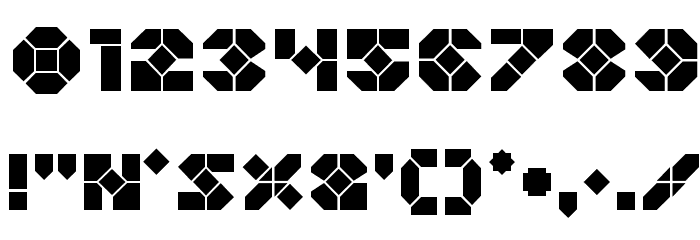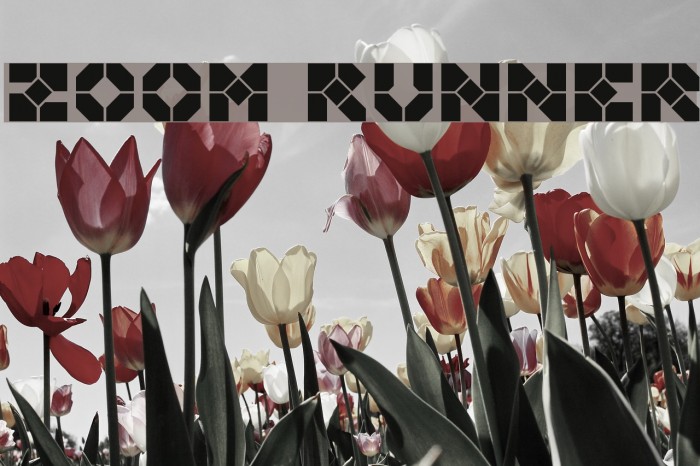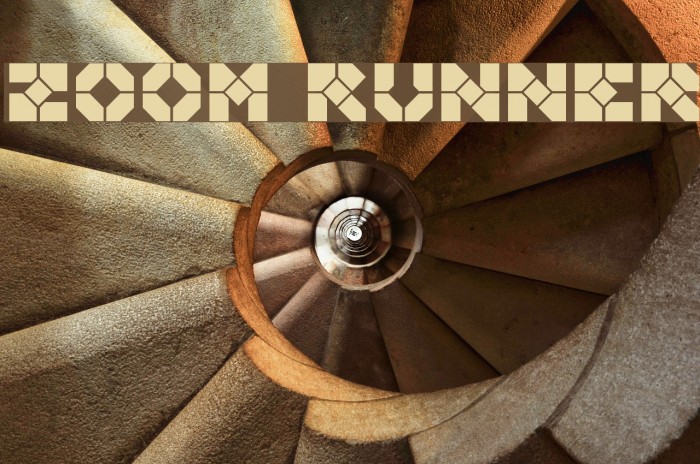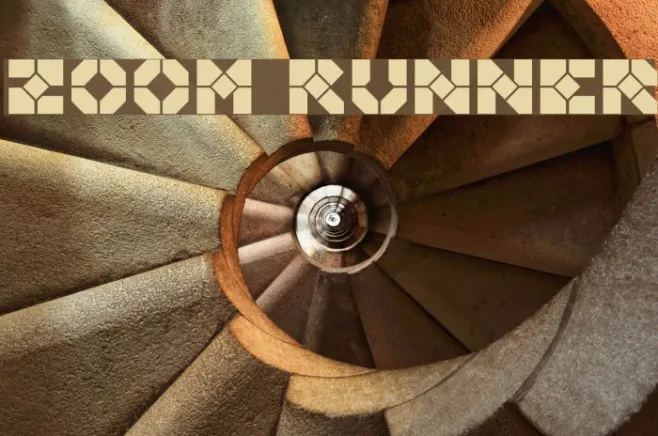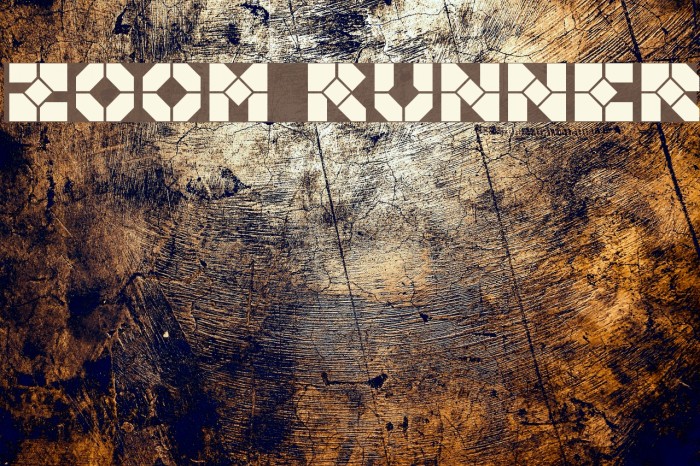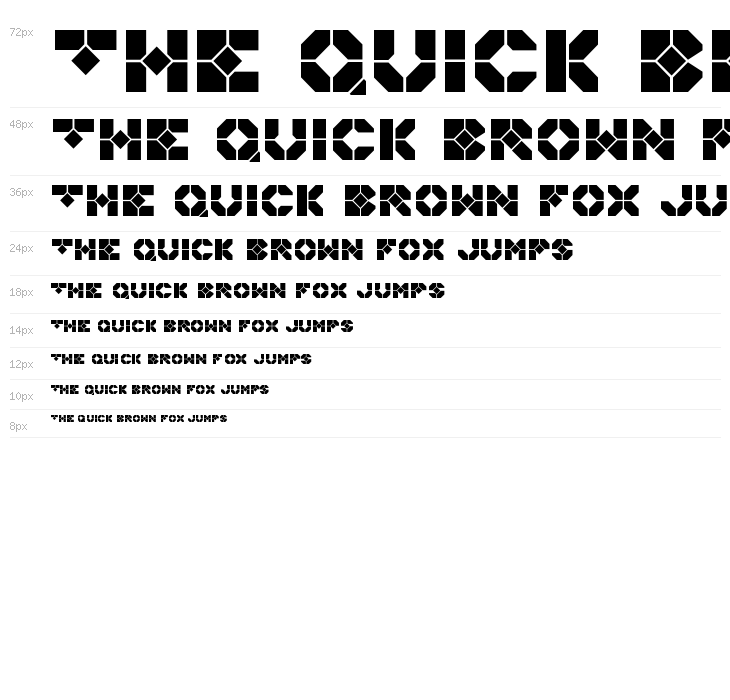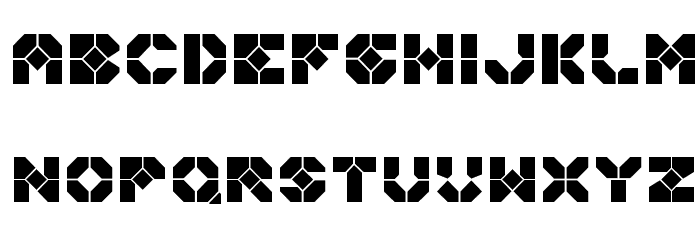
Zoom Runner Font
Zoom Runner Description
This font features a bold, geometric design with a futuristic and digital aesthetic. Each character is constructed from a series of interconnected shapes, creating a blocky, pixelated appearance. The uniformity and symmetry in the design give it a structured and modern feel, while the angular edges add a dynamic and edgy touch. The font is highly stylized, making it ideal for projects that require a strong visual impact. Its unique style is reminiscent of digital displays or retro gaming interfaces, offering a nostalgic yet contemporary vibe.
| Proposed Projects | Ideal for tech-related branding, video game titles, digital art projects, and futuristic-themed posters. |